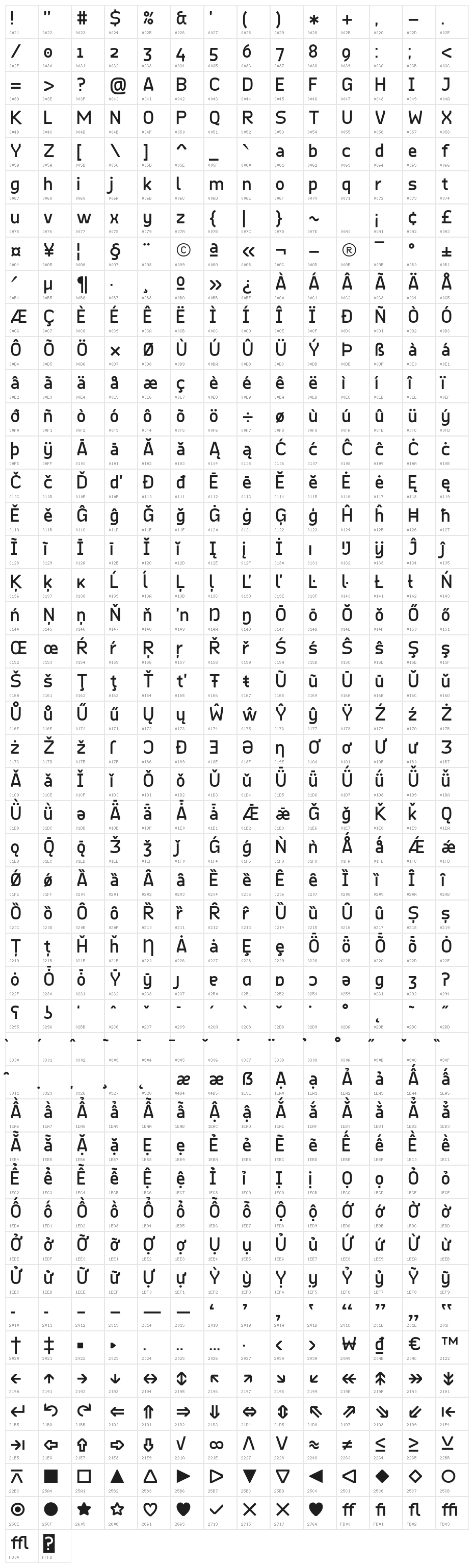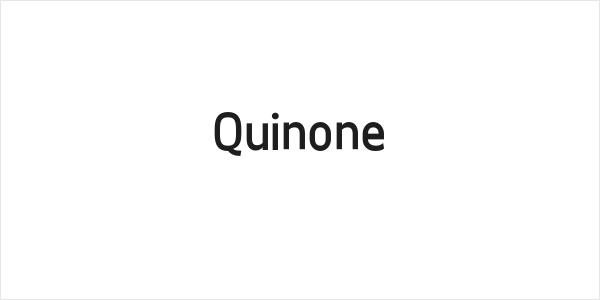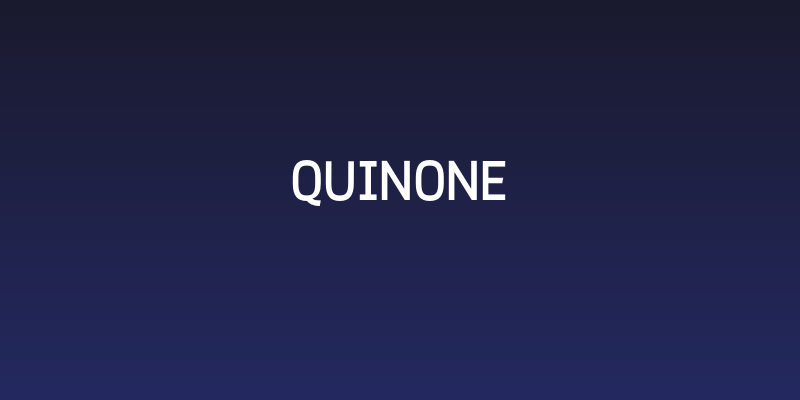
Quinone Font
Quinone Description
This font features a clean and modern sans-serif design, characterized by its geometric shapes and uniform stroke widths. The uppercase letters are bold and assertive, while the lowercase letters maintain a consistent and balanced appearance. The numerals are clear and easily distinguishable, making them suitable for various applications. The special characters are well-integrated, offering versatility for different design needs. Overall, this font exudes a contemporary and professional aesthetic, making it ideal for digital and print media.
Proposed ProjectsIdeal for branding, web design, advertising, and editorial layouts.